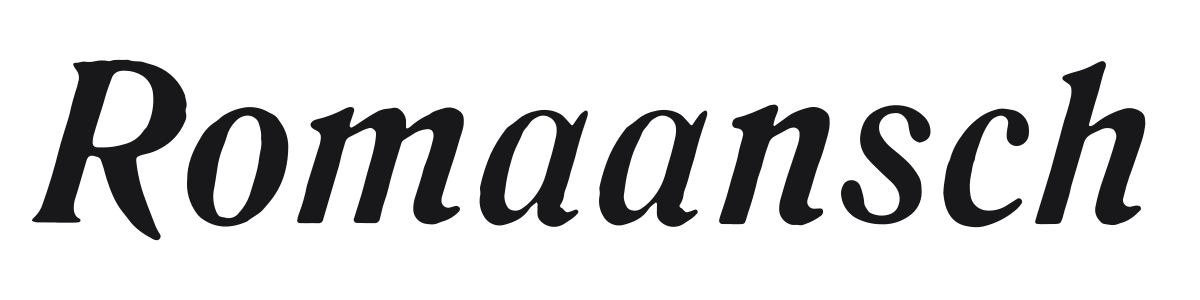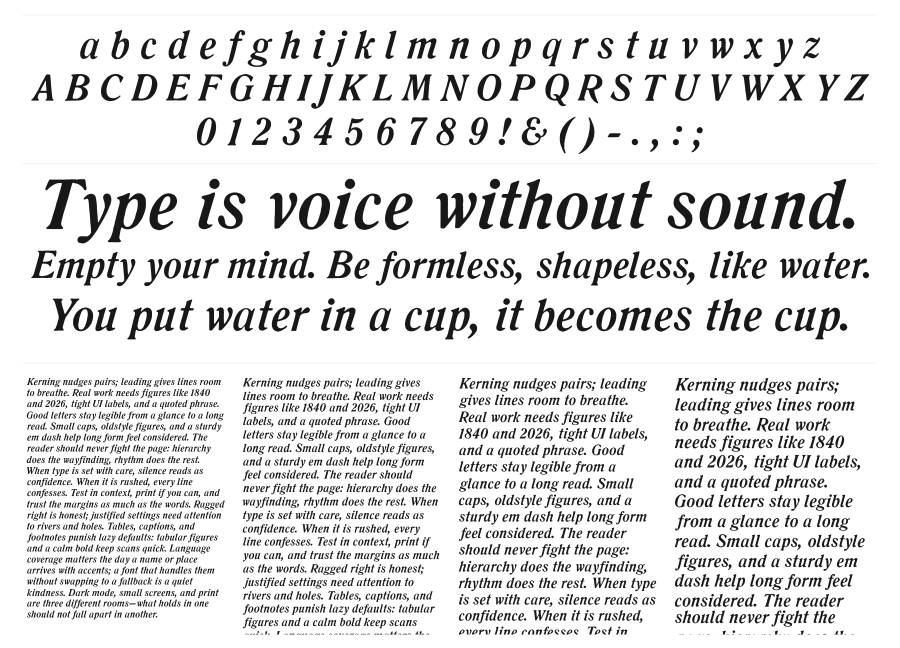
Romaansch
by Michael Hennessey
Romaansch is an old-style Roman serif derived from pre-1921 type specimen sheets, including a version from the Dutch v/a Nettenrode Foundry. Its calligraphic axis, bracketed serifs, and moderate stroke contrast carry the warmth of Renaissance humanist models filtered through early 20th-century foundry craft. Available in four styles, it brings genuine historical texture to editorial and book work.